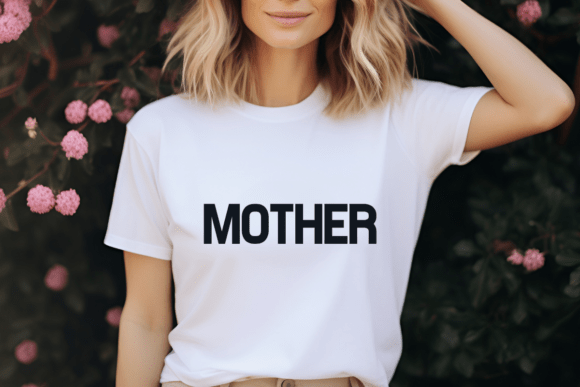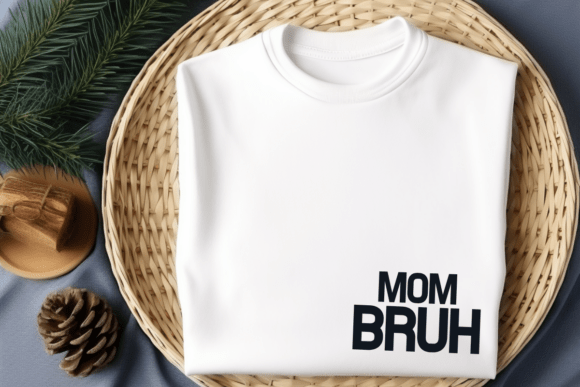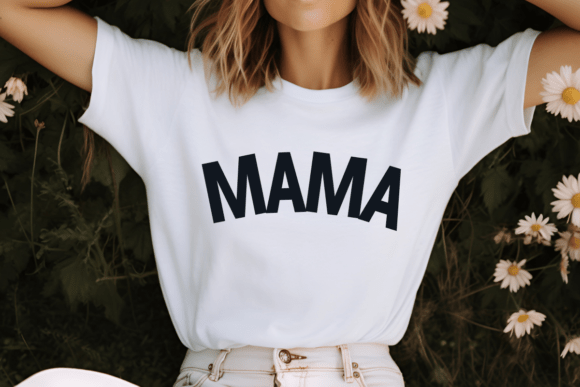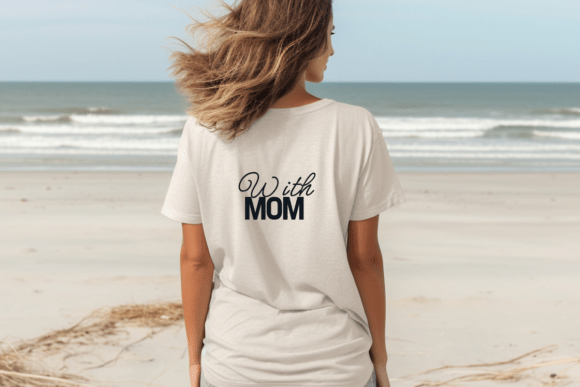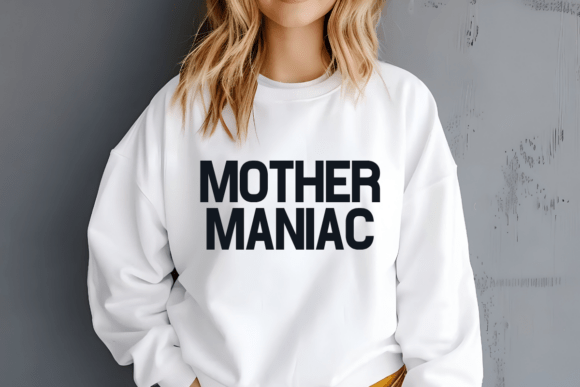
Introduction to Nutrition Font
Nutrition is a bold and modern sans serif font designed for creators who value clean aesthetics and strong visual impact.
With its wide, sturdy letterforms and geometric lines, this font is perfect for Print On Demand projects like t-shirts, posters, mugs, and tote bags, as well as for health branding, sports logos, and modern packaging Its versatile style fits both professional and energetic designs, making it ideal for fitness projects, food and beverage branding, or minimalist cinematic visuals.
Key Features of Nutrition Font
Why Choose Nutrition Font?